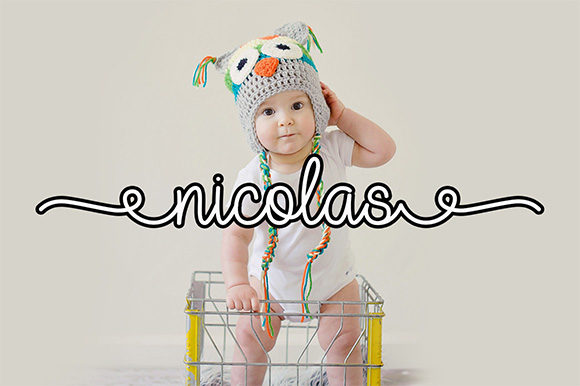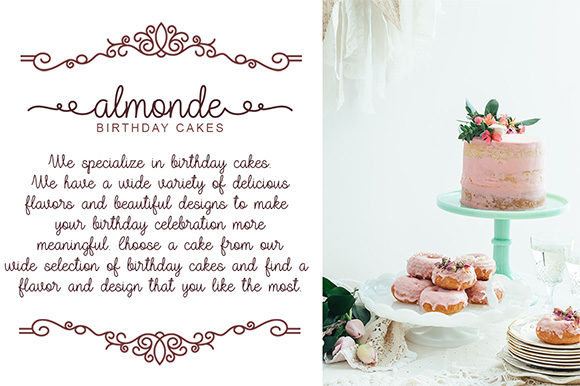
Lulu-Lala Font
db-ku.com - Script & Handwritten -- Lulu-Lala is a cute and charming handwritten font with a unique twist. Get inspired by its classic appeal!